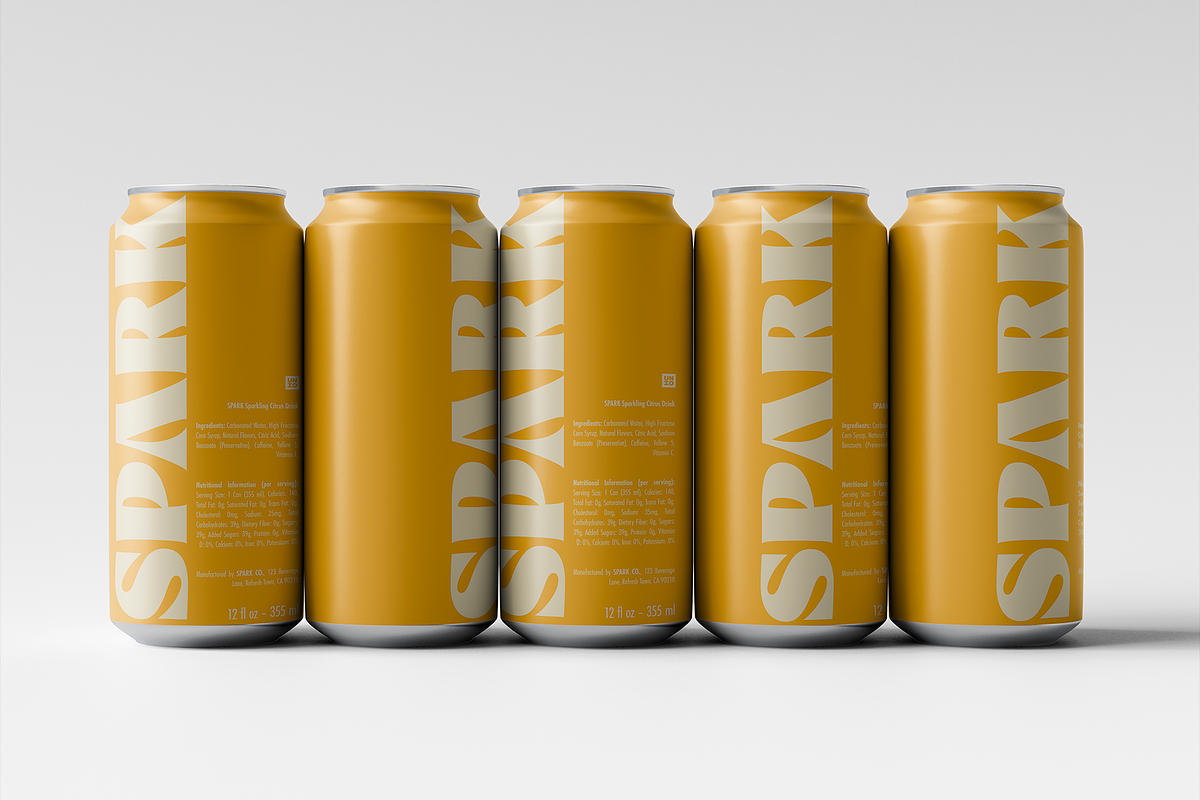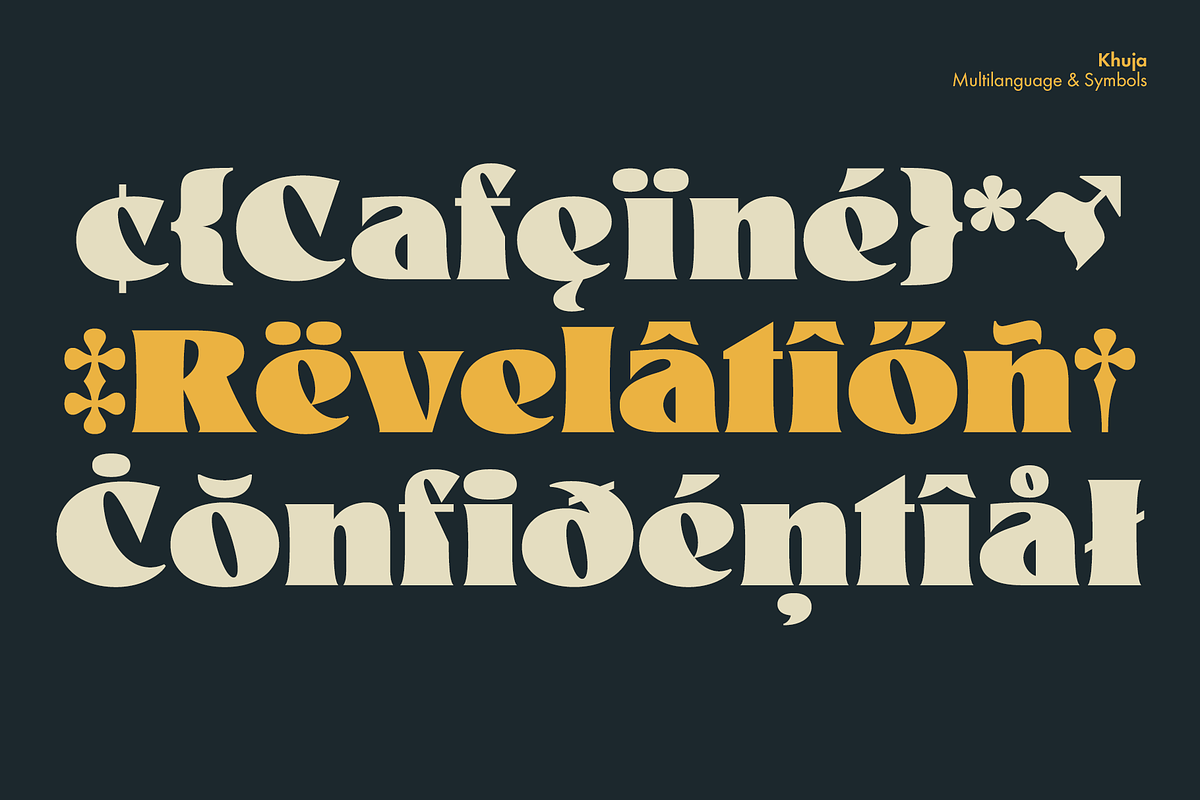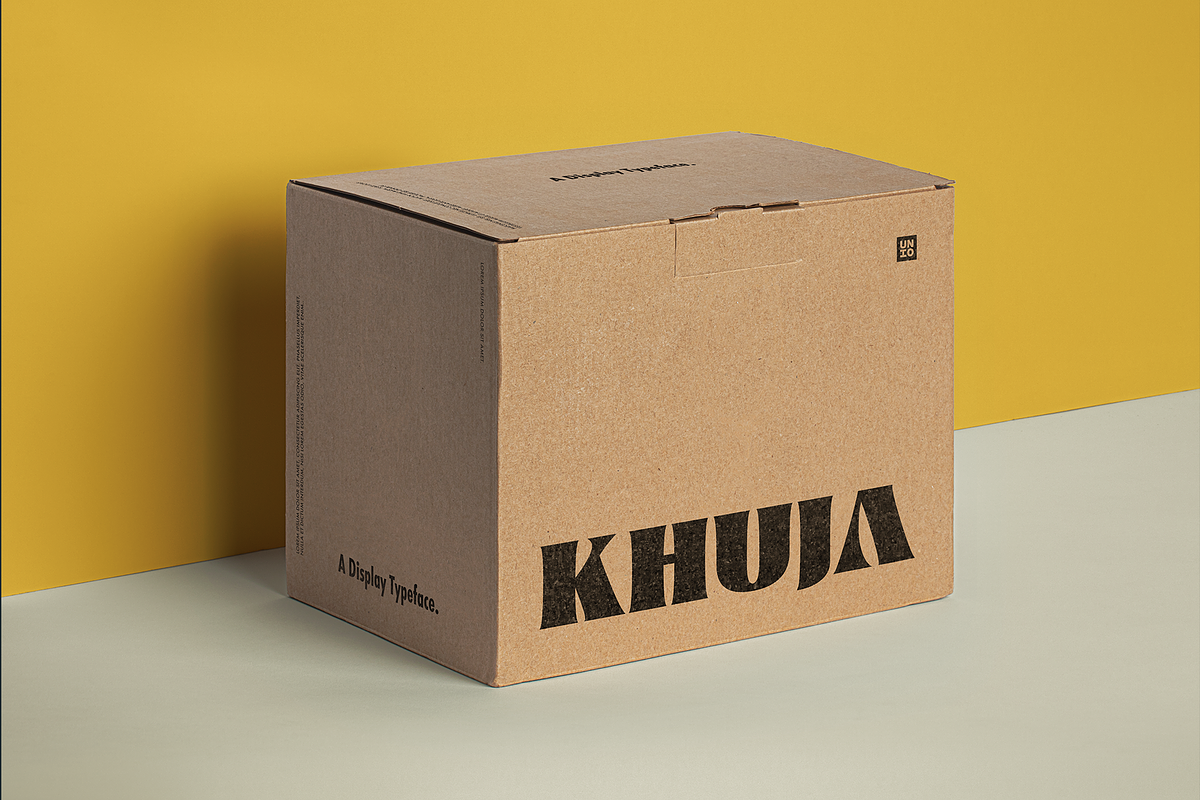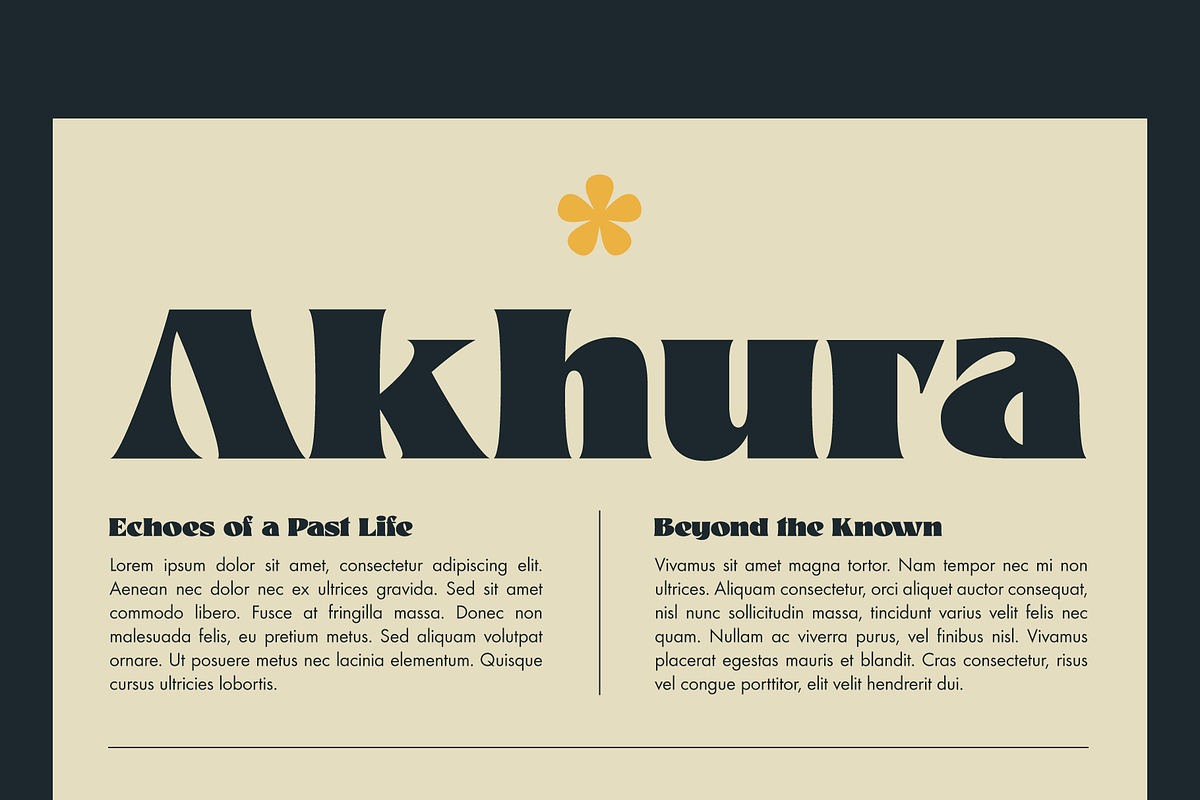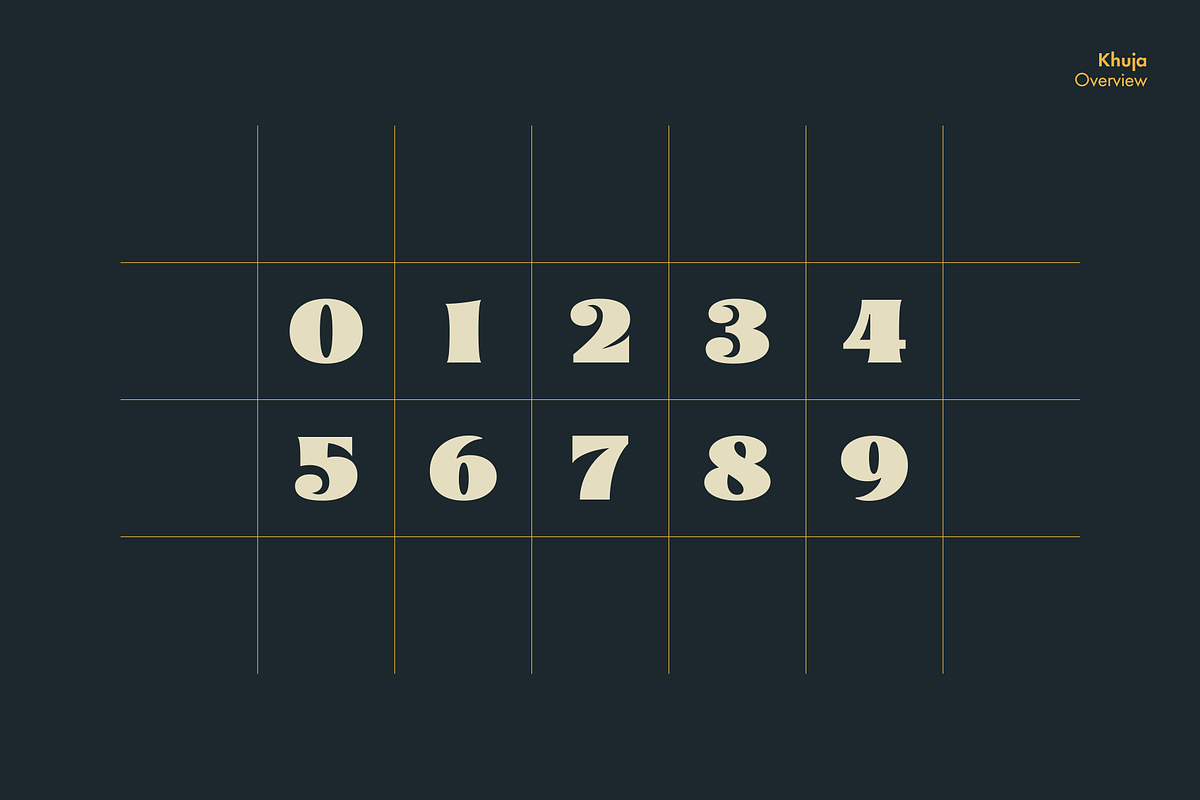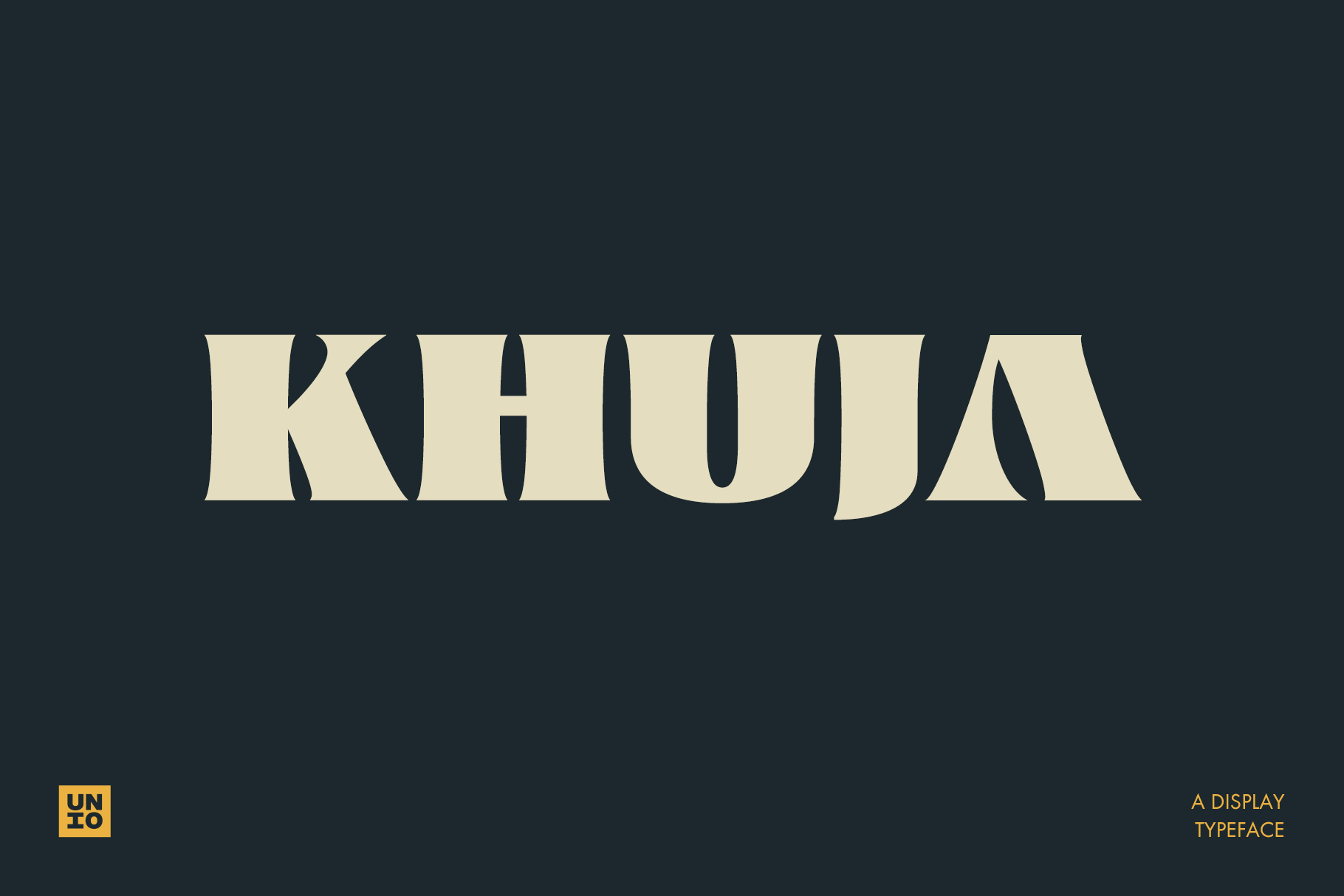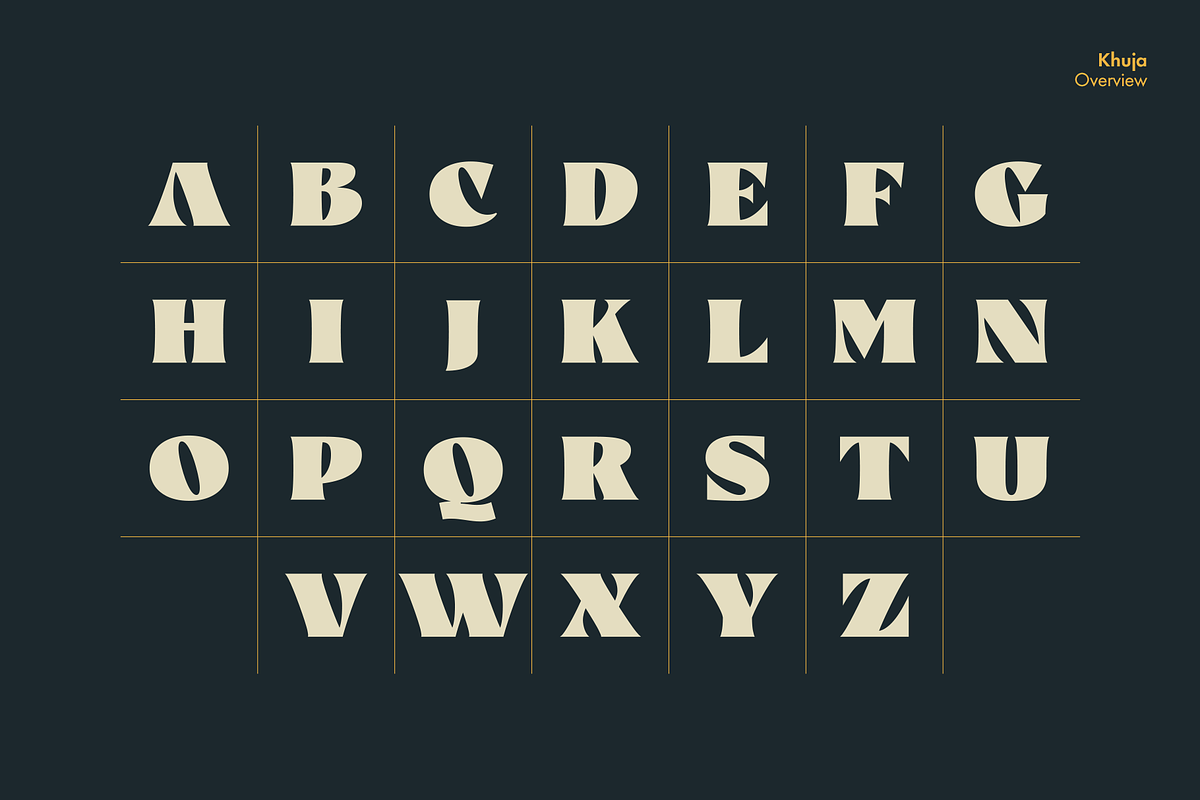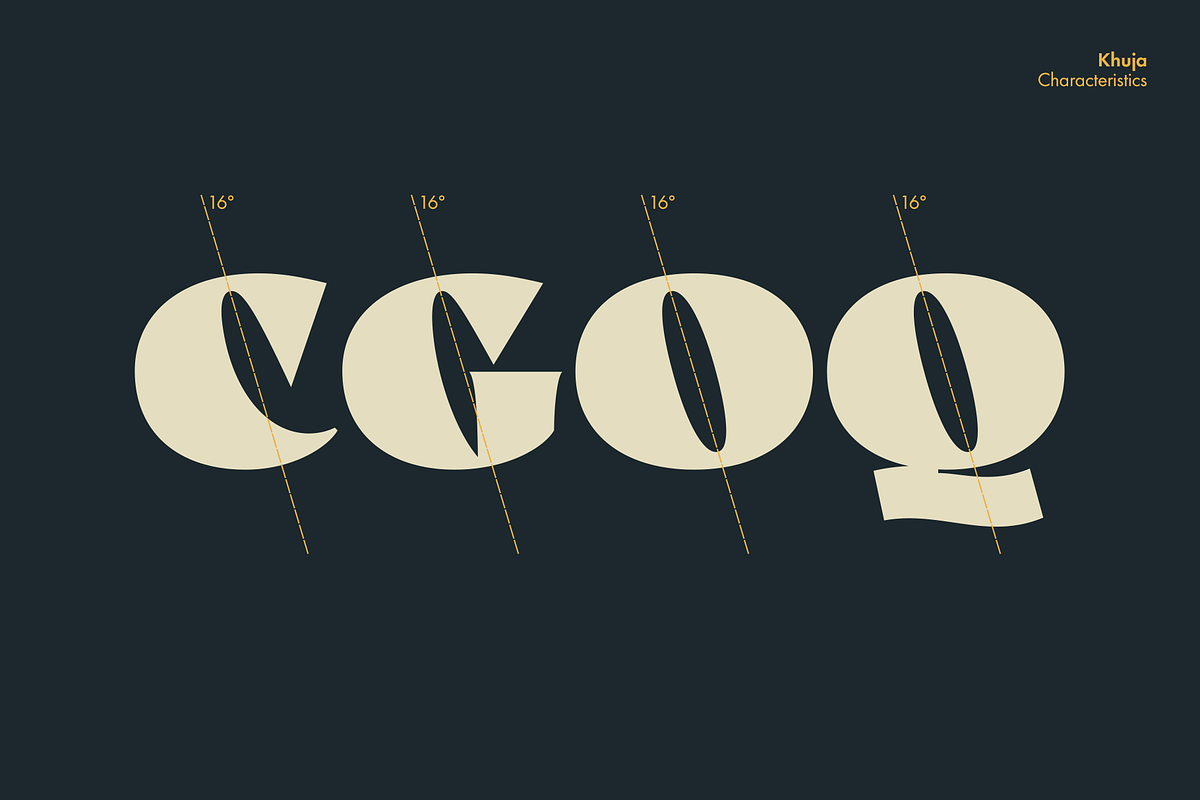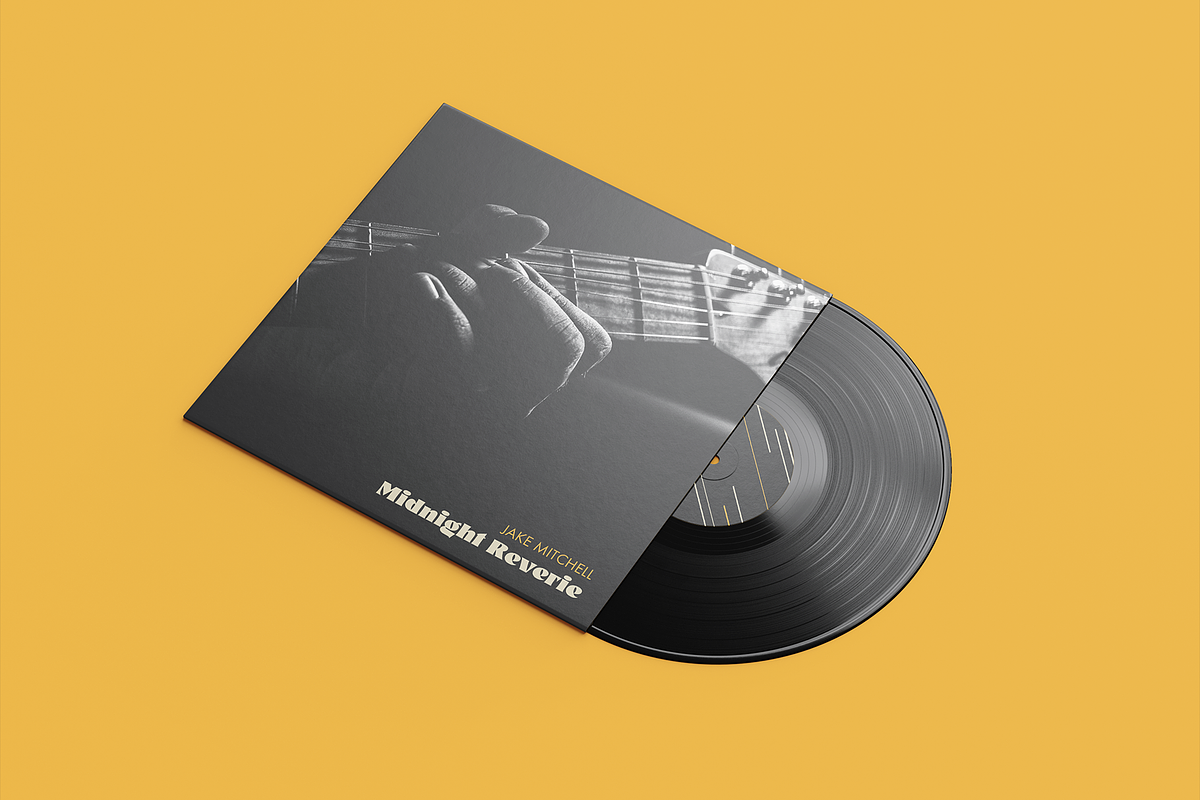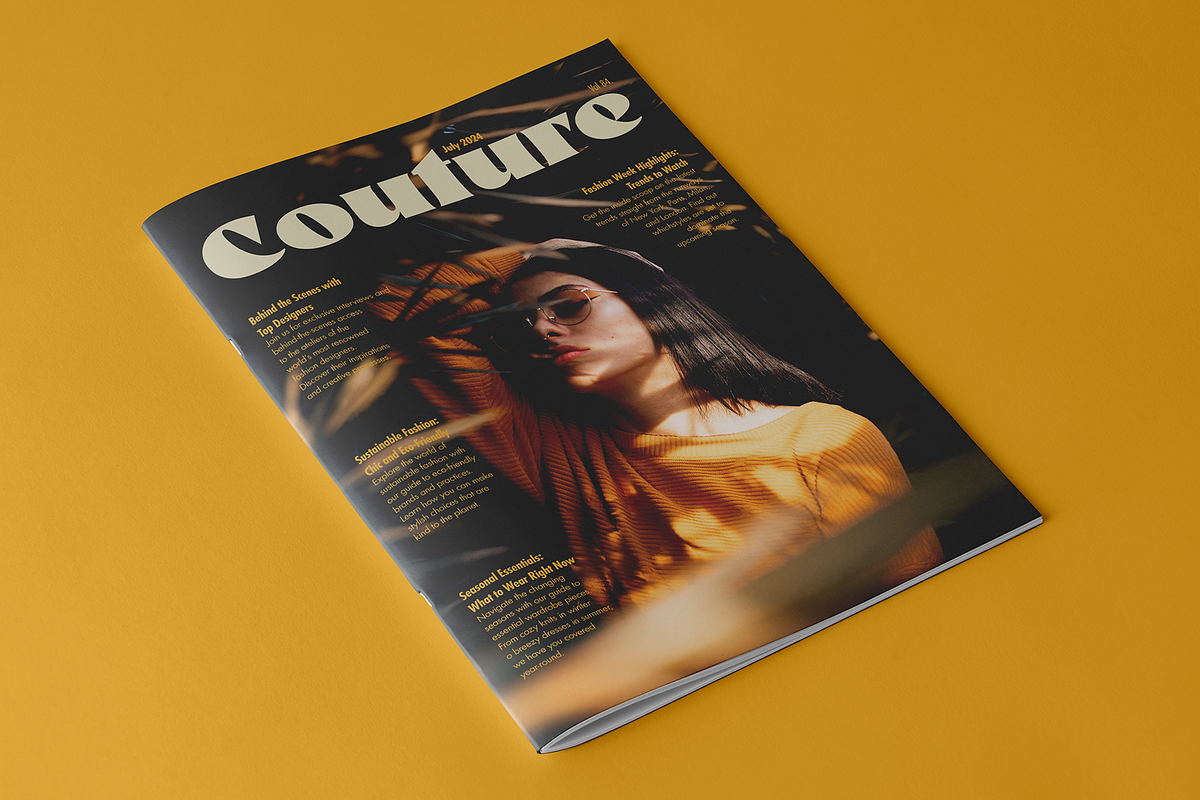
Khuja - Display Typeface
Introducing Khuja, a captivating display typeface that artfully fuses organic, flowing curves with bold, geometric forms. This unique combination lends Khuja a touch of sophistication, embodying the raw power and elegance of nature.
Every letter in Khuja is meticulously crafted to ensure a cohesive and visually striking appearance, enhancing both legibility and versatility across a wide range of applications.
Whether you're working on print or digital projects, Khuja is the ideal choice for branding, magazines, web design, broadcasting, packaging, apparel, and more. This font stands out, making your headlines and text elements not just readable but truly memorable.
Make your designs irresistible and your messages impactful with Khuja – the perfect font to make your headlines and content pop!